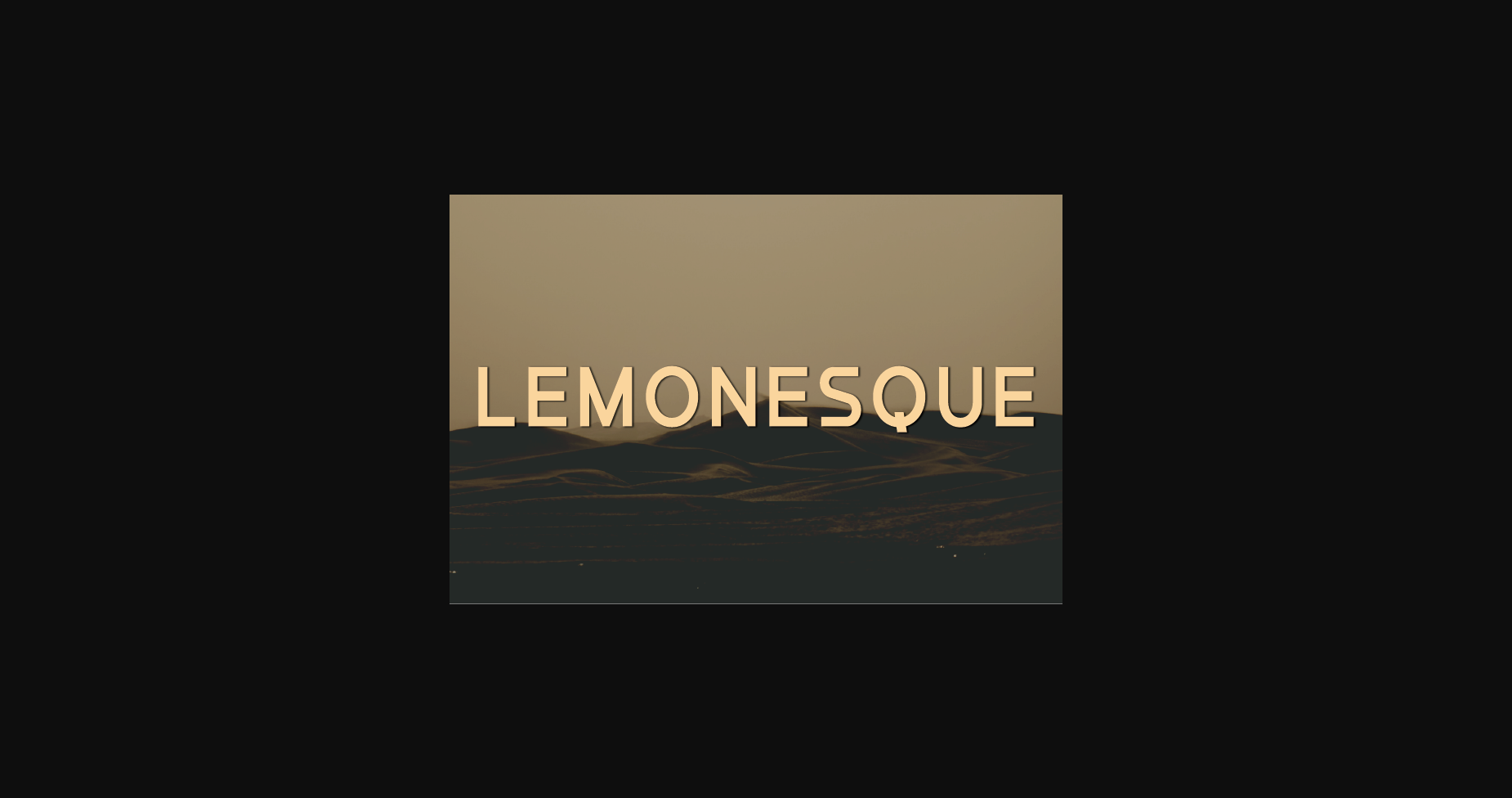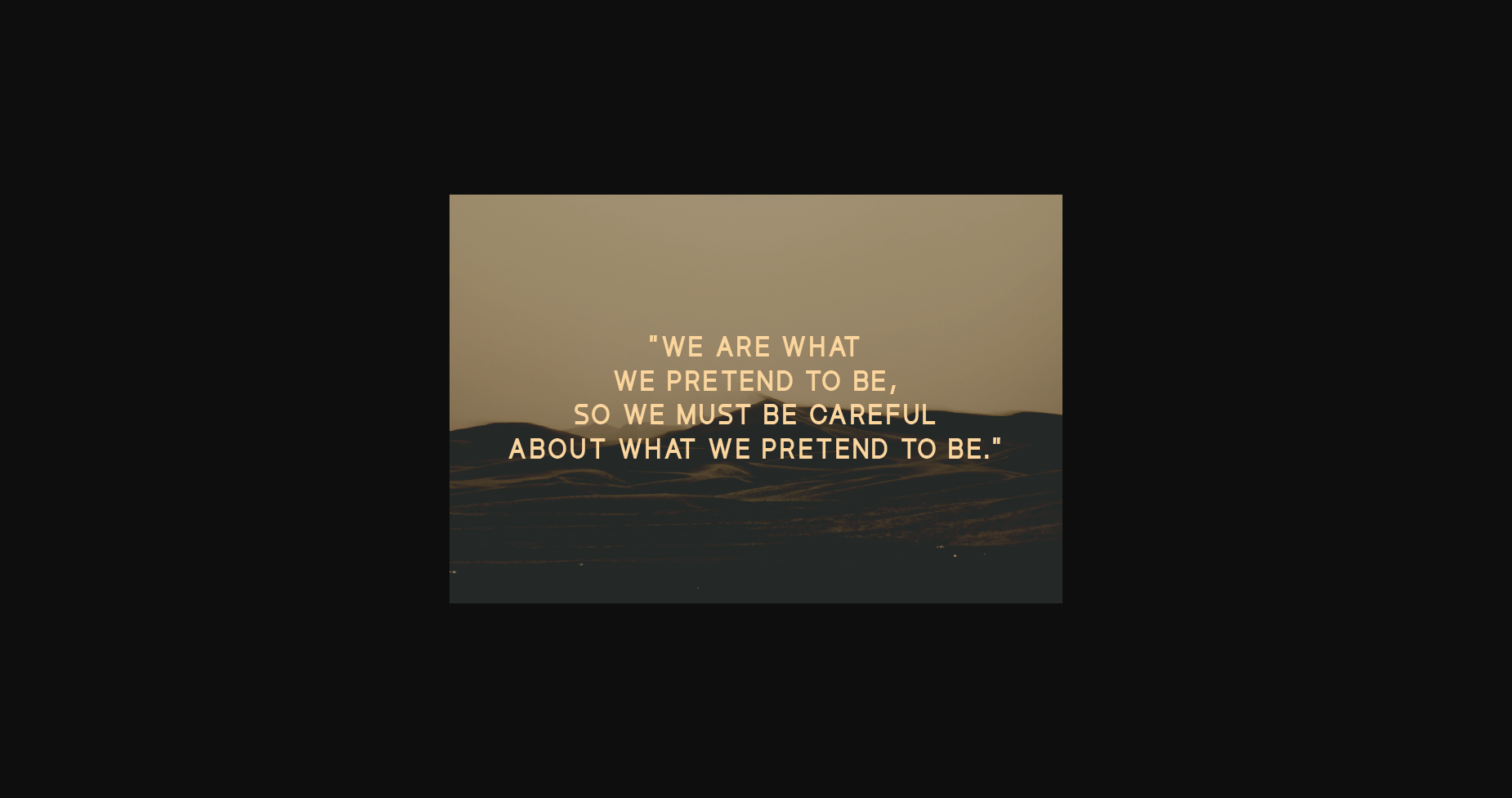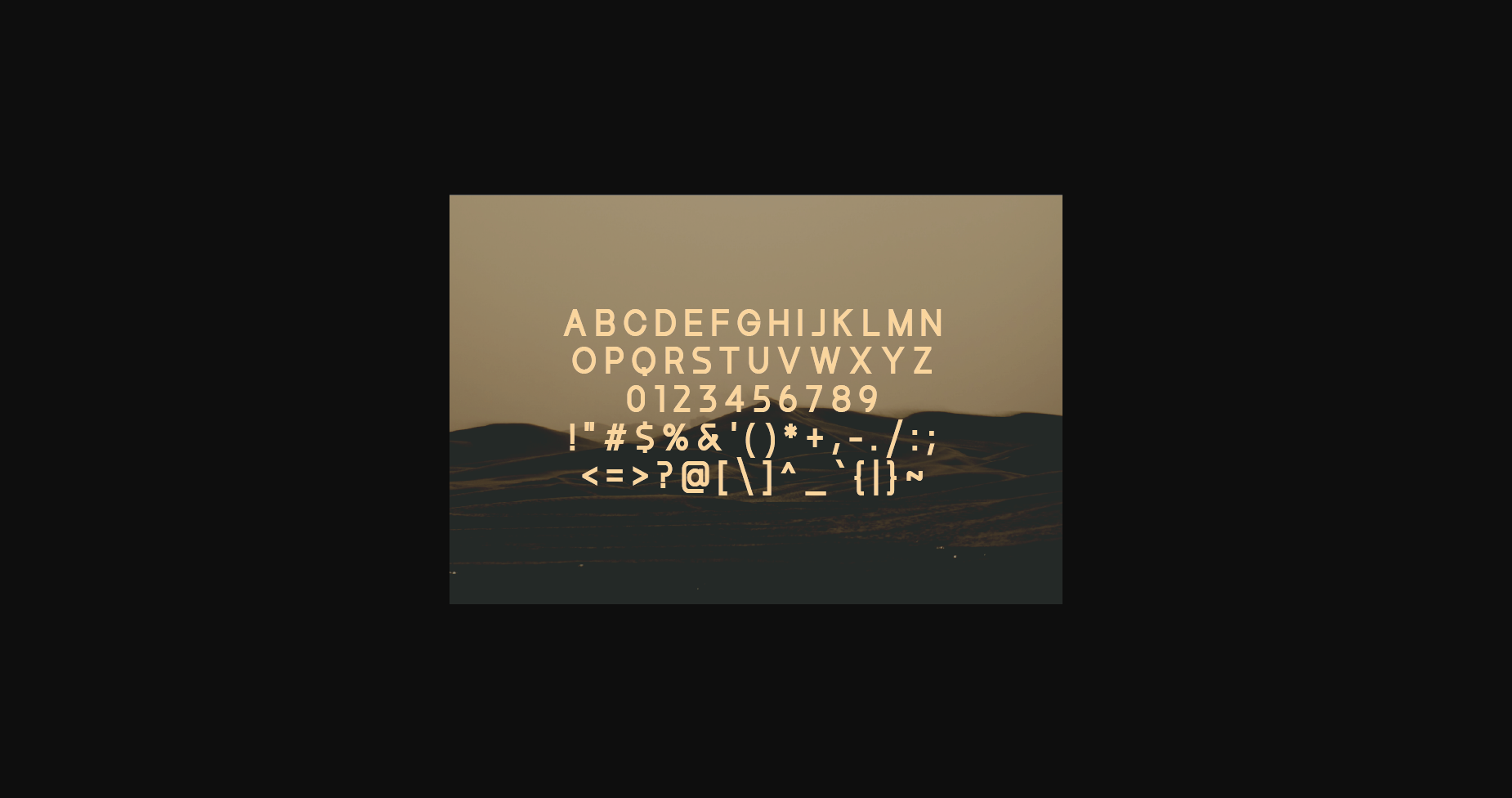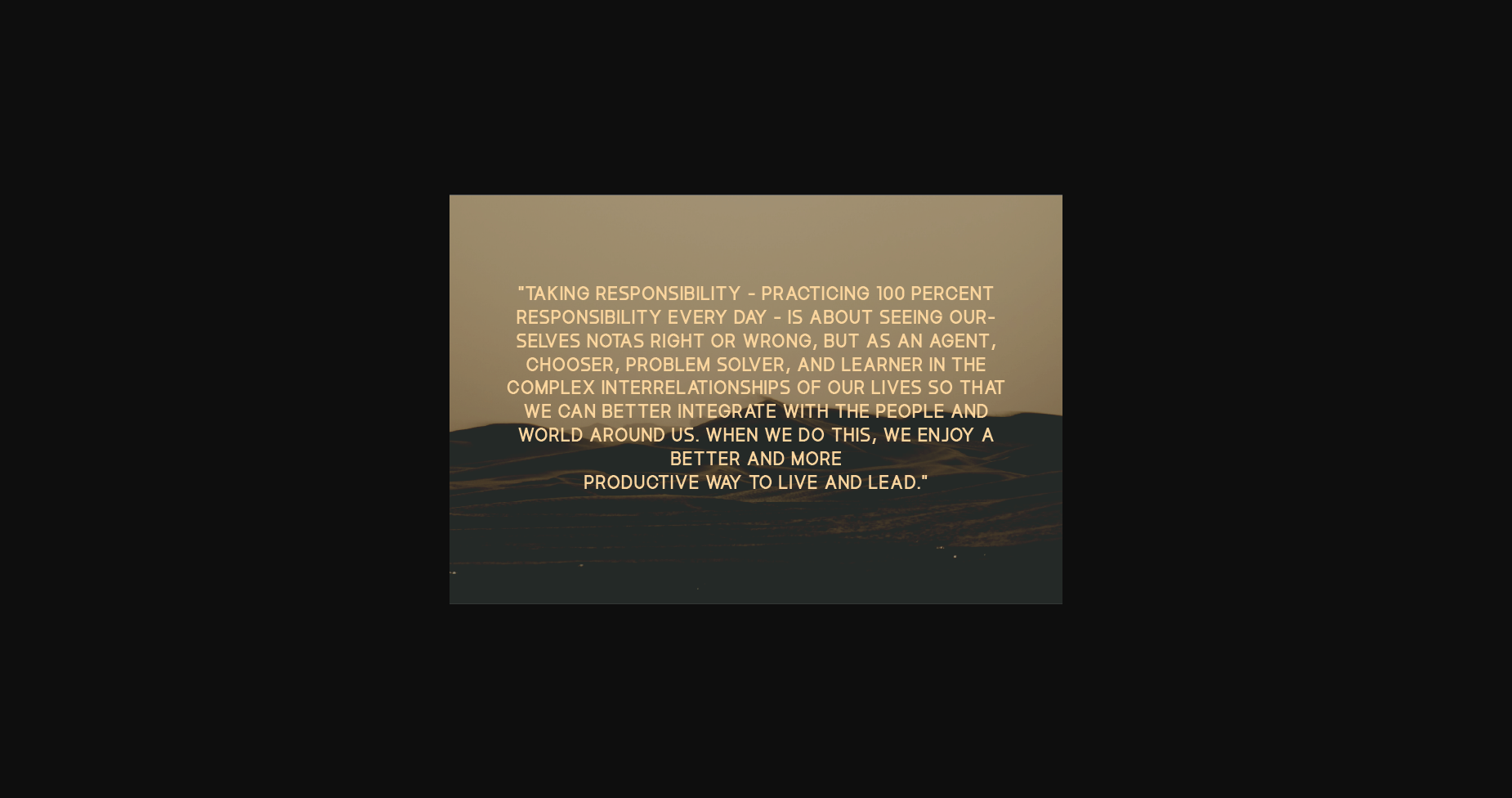
HomeSans Serif FontsLemonesque Font Sans Serif Fonts Lemonesque Font FacebookXPinterestWhatsApp 1 of 7 ... Lemonesque Font Poster 2... Lemonesque Font Poster 3... Lemonesque Font Poster 4... Lemonesque Font Poster 5... Lemonesque Font Poster 6... Lemonesque Font Poster 7... About Lemonesque Font Lemonesque is a modern and classy sans serif typeface. It is extremely versatile, perfect for logos, weddings, invitations, quotes, advertisements, print, magazines, and more! DOWNLOAD NOW People also explored Ornament Font Allefia Font Spiky Font Rösti Creamy Font Gold Port Font Leafs Font Hello Aliya Font Nonna Font Floral Sunshine Font 309 0 TagsLemonesque Font Previous articleProse FontNext articleSublimation Font LEAVE A REPLY Cancel reply Comment: Please enter your comment! Name:* Please enter your name here Email:* You have entered an incorrect email address! Please enter your email address here Website: Save my name, email, and website in this browser for the next time I comment. Personal Use Free Hello Sister Personal Use Free Read more about this font Hanifah Personal Use Free Read more about this font Mallvirra Personal Use Free Read more about this font Legacy Personal Use Free Read more about this font BLOG Using Fonts in Digital Marketing: Tips to Strengthen Your Brand Identity In the realm of digital marketing, every visual element plays a crucial role in shaping a brand's identity, and fonts are no exception. The... Fonts That Capture the Spirit of New York City To increase your work productivity, choose the most readable fonts. How to Install and Use Fonts on Windows, macOS, and Web Projects